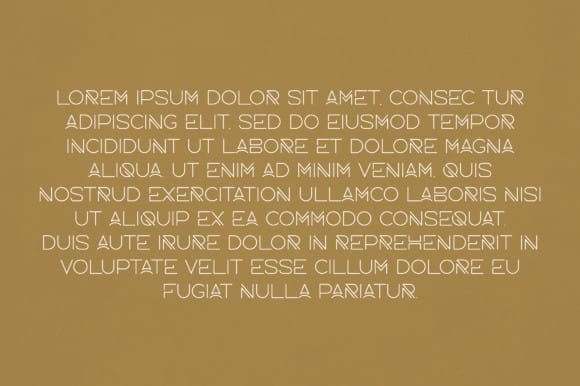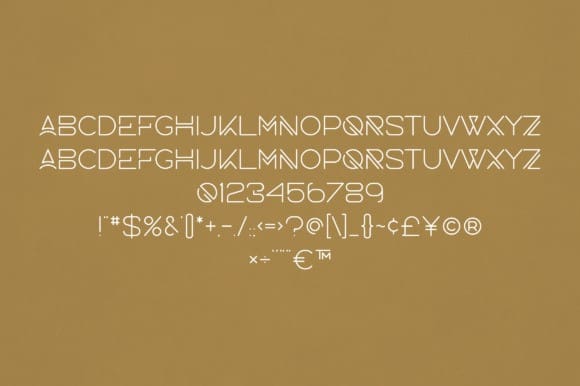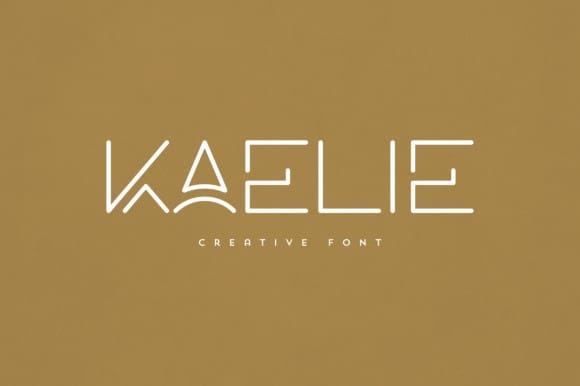
Kaelie Font
Kaelie Font is an elegant and versatile display font that will make your typography truly unique! It will enchant every logo, branding, headline, or plain text!